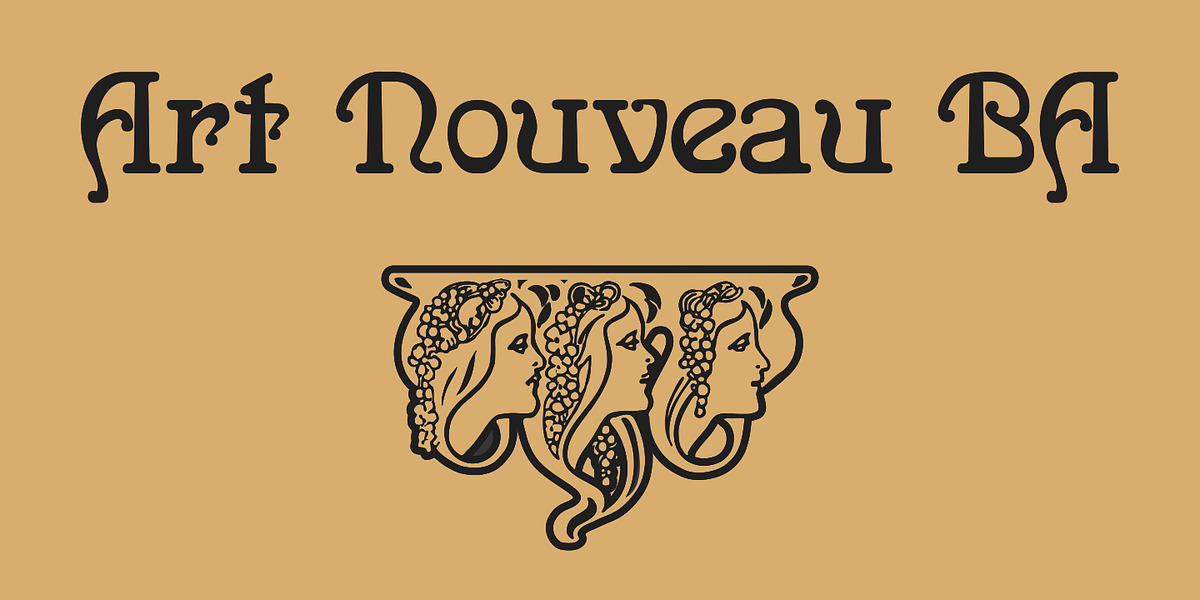
ArtNouveau-BA
This original Art Nouveau font draws inspiration from the style of Arnold Boecklin, a prominent Symbolist painter. Its decorative and curly characteristics make it suitable for eye-catching displays and posters.